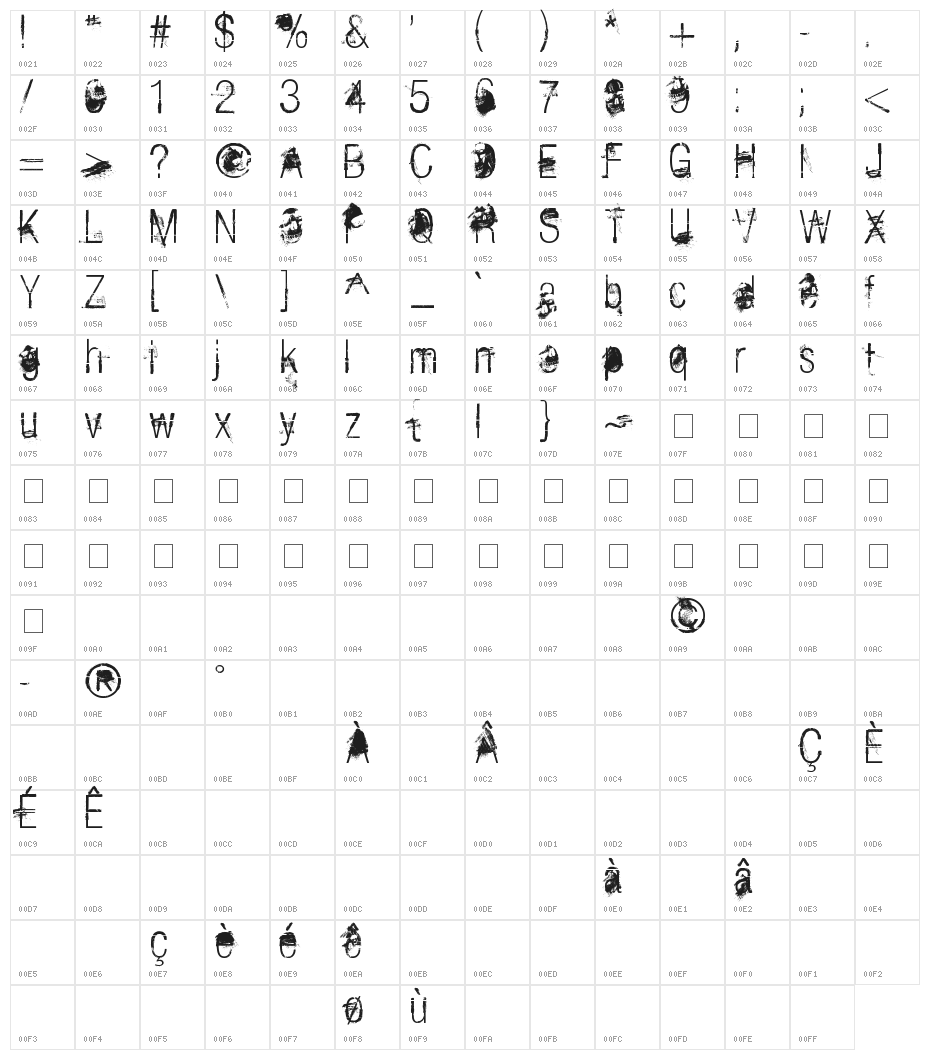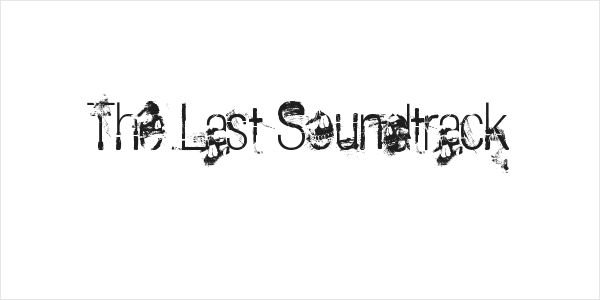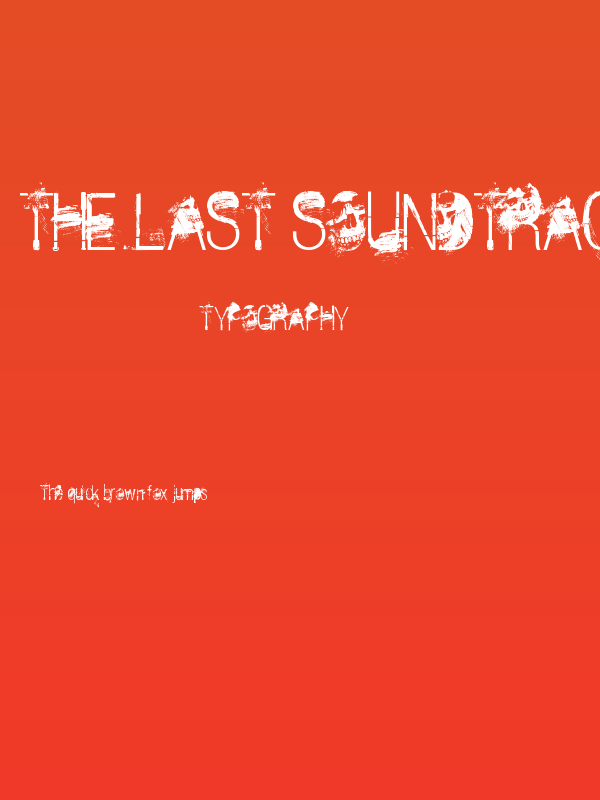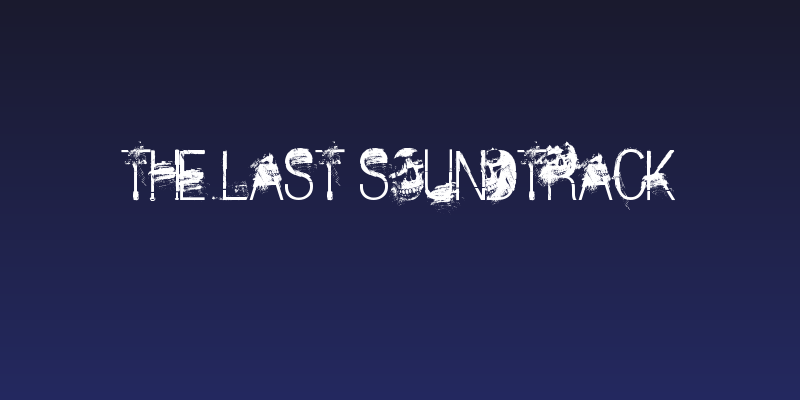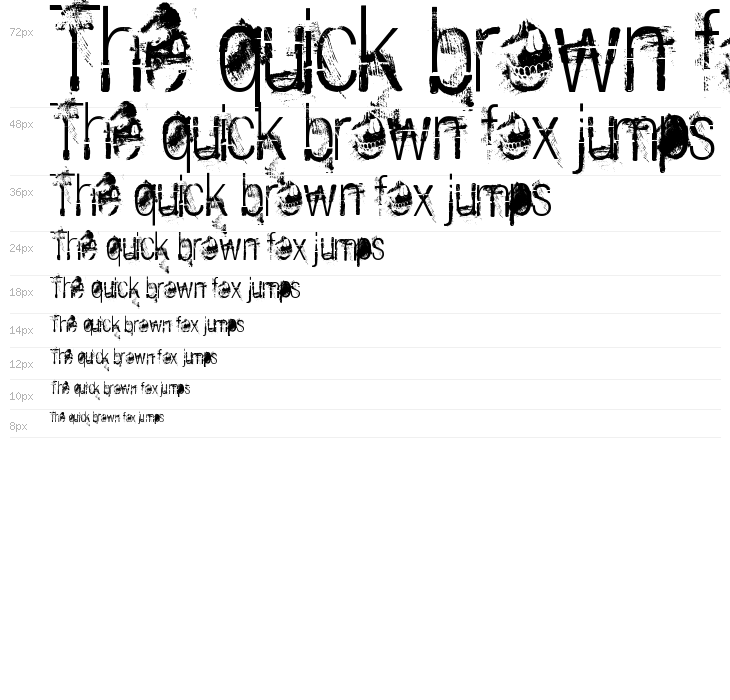
The Last Soundtrack Font
The Last Soundtrack Description
This font features a distressed, grunge style with a unique overlay of skull graphics, creating a bold and edgy appearance. The characters are sans-serif with a rough texture that gives them a worn, gritty look. The uppercase and lowercase letters maintain a consistent height, while the numbers and special characters follow the same distressed theme. The overall design is chaotic yet structured, making it stand out for creative projects that require a rebellious or alternative aesthetic.
Overall StyleGrunge, Edgy, Alternative
Use CaseLogos, Posters, Album Covers
Proposed ProjectsIdeal for music album covers, horror movie posters, edgy apparel designs, and alternative event flyers.